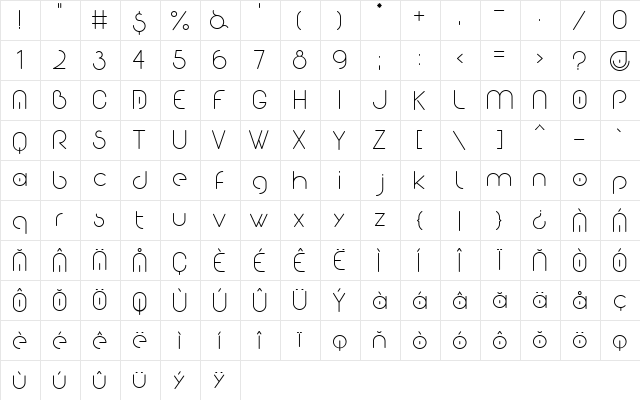
Eva Regular
| Foundry | Design Something |
| Designer | Hortensiu Milstein |
Design Context for Eva Typeface
Eva is a composed and adaptable typeface that performs quietly and consistently across a wide range of design contexts.